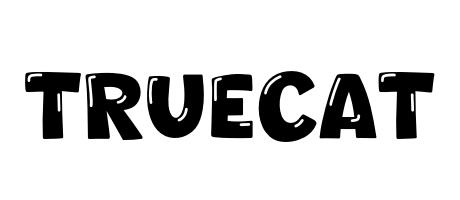
Truecat
Truecat: A bold, playful sans-serif font. Its chunky, slightly rounded letters have a cartoonish quality, suggesting a friendly, approachable feel. The letters are solid black, creating a strong visual impact. The overall style is reminiscent of a playful logo or branding for a product targeting a younger demographic.